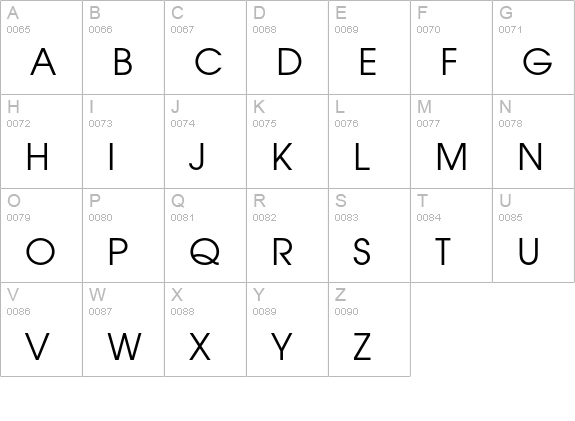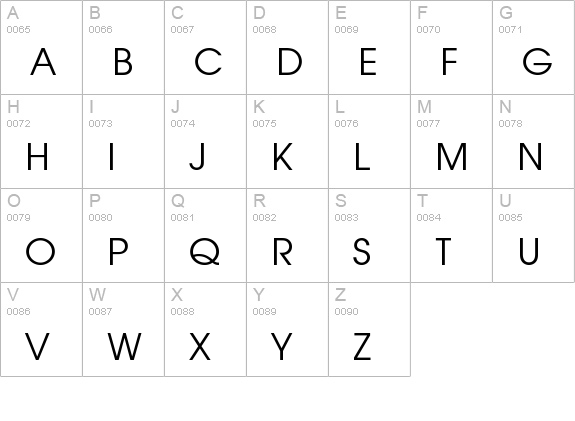
AvantGardEF-Book Font Details
AvantGardEF-Book is a comfortable, highly readable variant in the AvantGardEF typeface family \xE2\x80\x94 well suited to long-form body text, articles, and editorial content.
Introducing AvantGardEF-Book font, a sleek and modern typeface that exudes sophistication and elegance. Designed with clean lines and a minimalist aesthetic, this font is perfect for a wide range of design projects, from branding to editorial layouts. AvantGardEF-Book is a versatile font that can be used for both display and body text, making it a valuable addition to any designer's toolkit. Its balanced proportions and subtle details make it easy to read while still maintaining a unique and contemporary look. Best of all, AvantGardEF-Book is available for free download at FontsMarket.com. That's right, you can get your hands on this stylish font without spending a dime. So don't miss out on the opportunity to elevate your designs with AvantGardEF-Book font today!